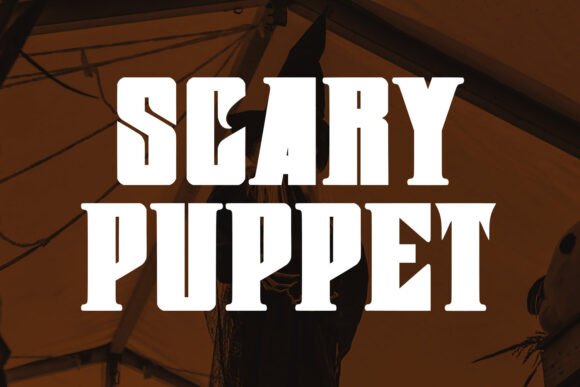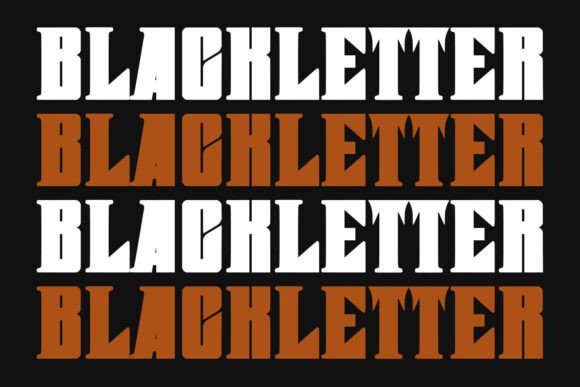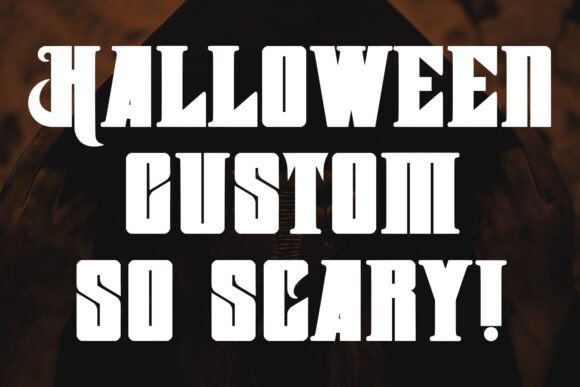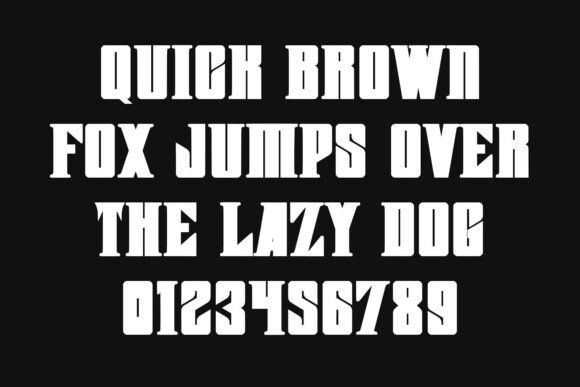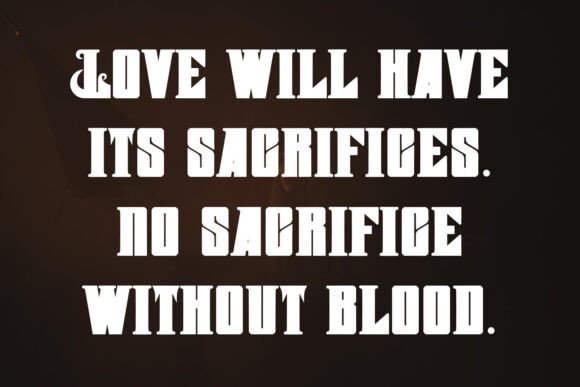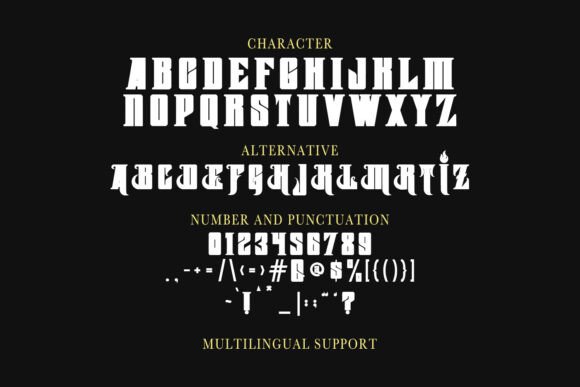
Introduction to Rukest Font
Have you ever found yourself in a creative rut, struggling to find the perfect font to bring your design to life? As a designer, you know how crucial the right typography can be in setting the tone and atmosphere of your project. That’s why we’re excited to introduce you to Rukest Font, a stunning Modern Victorian hand-lettering that’s sure to elevate your creative project to the next level.
With its unique blend of modern and classic typography, Rukest Font is the perfect design resource for designers looking to add a touch of sophistication and elegance to their work. Whether you’re working on a high-quality branding project, a beautiful poster, or a stunning social media graphic, Rukest Font is the perfect choice to make your design stand out.
Key Features of Rukest Font
- High-quality design resource ideal for creative projects, including logos, icons, and graphics.
- Features a unique, modern design with a transparent background, allowing for easy customization and layering.
- Perfect for designers, artists, and creatives looking for a stylish and versatile font to elevate their work.
Honest Review: Rukest Font
As a designer, I’m always on the lookout for high-quality design resources to elevate my creative projects. Recently, I came across the Rukest Font, and I’m excited to share my honest review.
What works well: ✨ The Rukest Font is incredibly versatile, making it perfect for a wide range of design applications. Its clean and modern design aesthetic lends itself well to both digital and print projects. I also appreciate the transparent background, which allows for seamless integration with my design files.
- Pros:
- Perfect for digital and print projects
Tips for Getting the Most Out of Rukest Font
For the best results, use Rukest Font in conjunction with a high-quality image or graphic. You can also experiment with different font sizes and styles to add depth and interest to your design.
Rukest Font is ideal for use in creative projects such as logo design, typography, and graphic design. It’s also great for use in business cards, brochures, and other marketing materials where a touch of elegance is required.